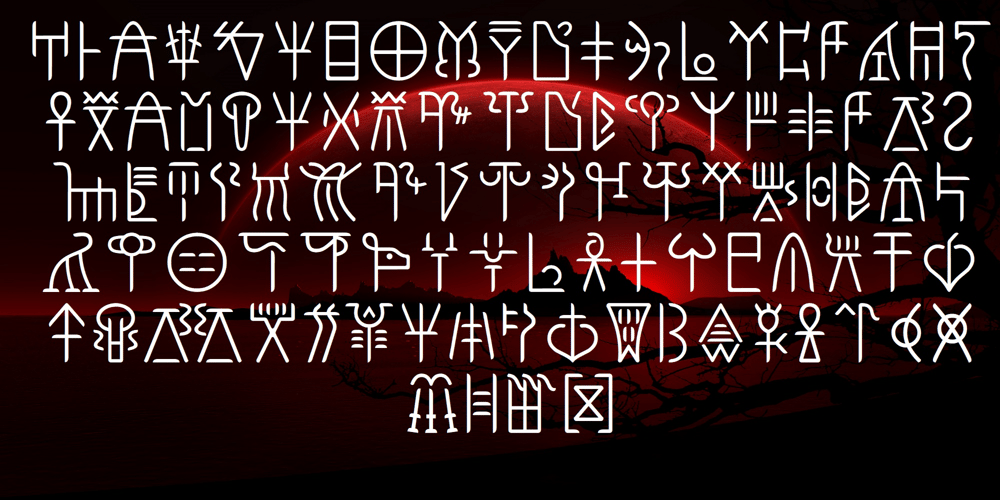
Ongunkan Linear B Syllabary Font Family was designed by Osman Nuri ALKAN and published by Runic World Tamgacı. Ongunkan Linear B Syllabary contains 1 styles and family package options. This font is based on the Latin-based font for Linear B syllable writing. It contains all the characters. To see some full characters, you can use Turkish characters by selecting the font from the add character section of the word program.Linear B was a syllabic script that was used for writing in Mycenaean Greek, the earliest attested form of Greek. The script predates the Greek alphabet by several centuries. The oldest Mycenaean writing dates to about 1400 BC. It is descended from the older Linear A, an undeciphered earlier script used for writing the Minoan language, as is the later Cypriot syllabary, which also recorded Greek. Linear B, found mainly in the palace archives at Knossos, Cydonia, Pylos, Thebes and Mycenae, disappeared with the fall of Mycenaean civilization during the Late Bronze Age collapse. The succeeding period, known as the Greek Dark Ages, provides no evidence of the use of writing. Linear B, deciphered by English architect and self-taught linguist Michael Ventris based on the research of American classicist Alice Kober[5] is the only Bronze Age Aegean script to have thus far been deciphered.